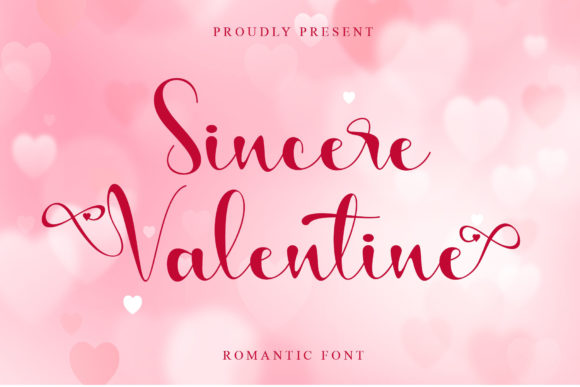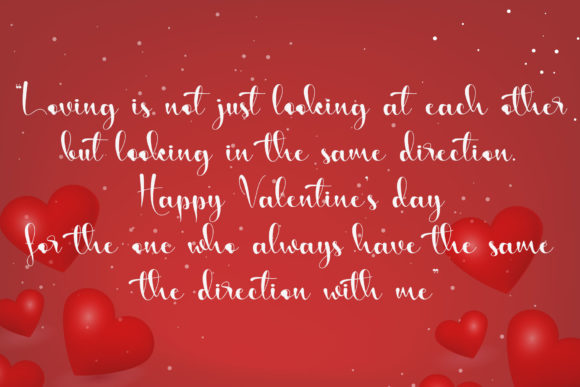
About Sincere Valentine Font
Sincere Valentine is a modern handwritten font made with sincerity and care to produce a font filled with love.
Celebrate Valentine’s Day with Sincere Valentine, and make your day full of love with your loved ones!